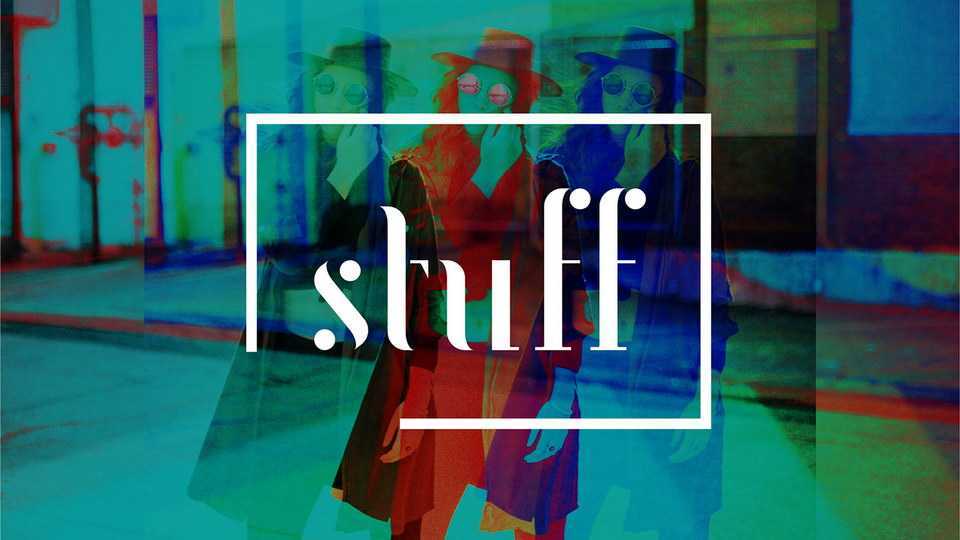
Download Stuff font, a modular display serif, where contrast is at the heart of the design, resulting in an original and attractive typeface. Stuff is perfect for branding projects and logos.
Designer: Santiago Cajal